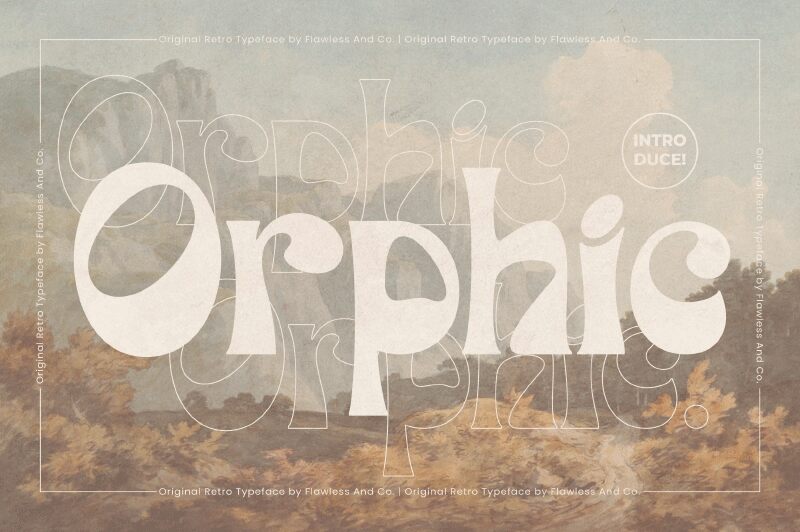
Orphic Regular
Orphic font by Achmad Yani of Flawless and co. is a bold, groovy display typeface with a modernist influence. The visually striking letters feature distinct uppercase shapes made up of abstract, artistic forms, resulting in a retro style that imitates the feel of the 70s. This font looks best when used to create short personalized messages mixed and matched with other fonts.
This free display font can be perfectly used for greeting cards, invitations, tote bags typography, embroidered designs, books or game covers/titles, social media posts such as Instagram quotes or Facebook stories. Get also creative designing logos and identity print materials like business cards or letterhead designs.